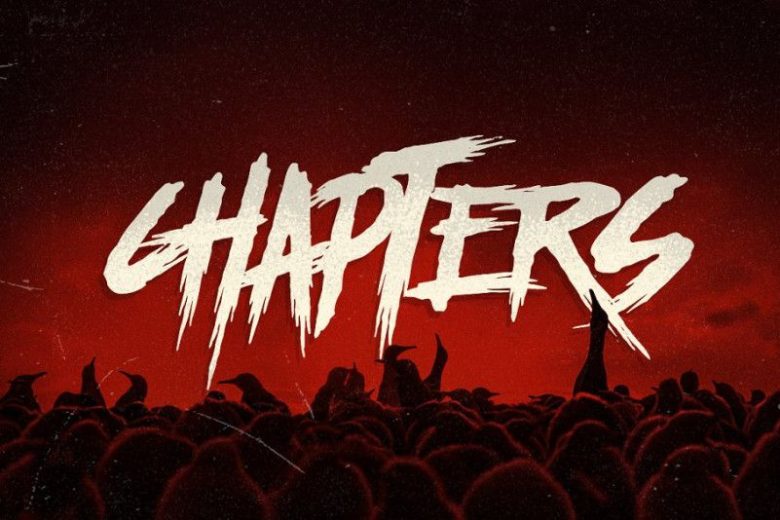
Chapters Font
Chapters Font is a handwritten brush font with authentic dry brush imperfections strokes drawn on paper.
Chapters is perfect for branding projects, logo, wedding designs, social media posts, advertisements, product packaging, product designs, label, photography, watermark, invitation, stationery and any projects that need handwriting taste.